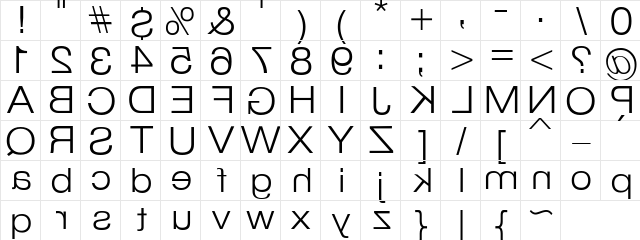
Ambulance Regular
Design Context for Ambulance Typeface
Ambulance offers clean, dependable letterforms without strong stylistic allegiance, making it a practical choice for designers who need flexibility.